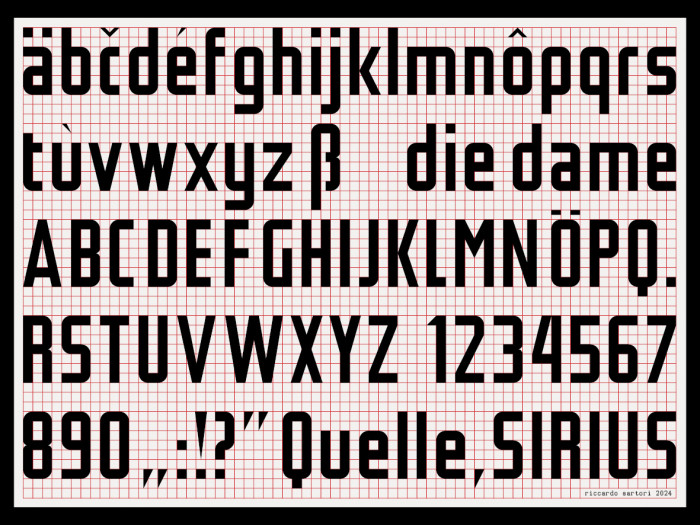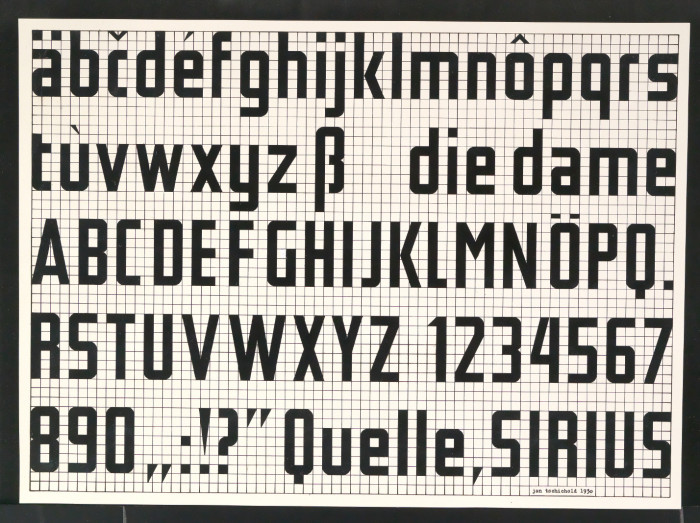
My version of Jan Tschichold’s “Schmale Grotesk - Leicht und schnell konstruierbare Schrift” (narrow grotesque - font that is easy and quick to construct), from 1930.
Turns out it isn’t always “quick and easy” to translate a pen and straightedge approach to constructed letters into Fontstruct’s prefabricated bricks setting.
In expanding the glyph coverage, I tried to remain true to the spirit of the original self imposed limitations, both in terms of grid (e.g. the cramped space for the uppercase diacritics), and of tools (see the solution for superscripts et similia).
The font covers all of Google Fonts Basic set and, given the c-caron present in the source, all of Czech orthography. I may try to add other Eastern European languages in the future.
There are many different takes on the same source (including for the visual identity of a museum), you can look at Serious, here on Fontstruct, or at Iwan Reschniev, for an extensive expansion in weights and typographic features.
The original plate by Jan Tschichold
My reconstruction
I wonder what they look like on top of eachother (with different colors to tell the two apart)?
@Bryndan Unfortunately the original image is a bit deformed, thus it would be difficult to achieve such comparison, but I tried to recreate it as accurately as possible, even when it strayed from the strictness of the grid (see, for example, some of the diagonals).